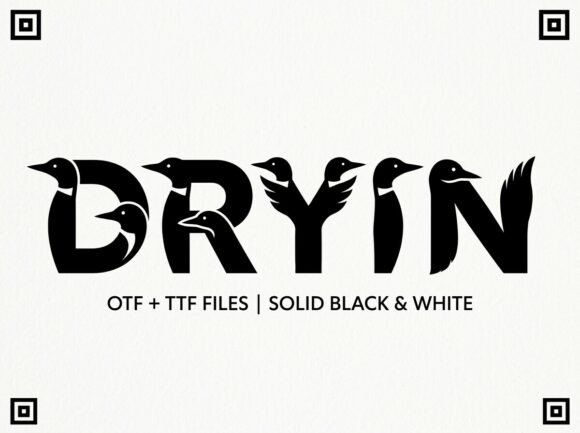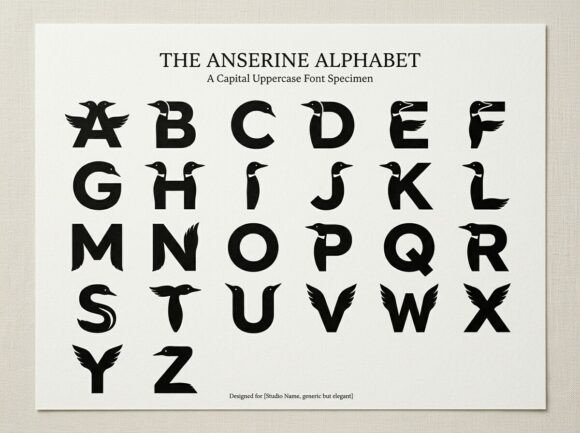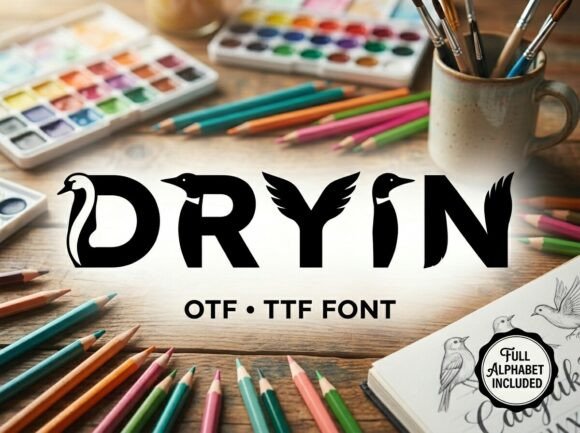
Introducing Dryin Font: Where Typography Meets Minimalist Nature Illustration
In the world of typography, few fonts have managed to capture the essence of nature’s elegance and sophistication. Dryin Font is one such exceptional typeface that seamlessly blends bold, solid silhouettes with the gentle profiles of water birds, creating a captivating display font that elevates visual storytelling.
The Unique Design of Dryin Font
Dryin Font is a masterpiece of typographic innovation, where each character is intricately integrated with the graceful curves of water birds. The high-contrast interaction between the heavy letterforms and the elegant avian curves creates a rhythmic, sophisticated aesthetic that is both visually striking and harmonious.
The font’s design is characterized by:
• Bold, solid silhouettes: Dryin Font features sturdy, confident letterforms that command attention and exude a sense of luxury.
• Elegant avian curves: The gentle profiles of water birds are masterfully woven into each character, adding a touch of serenity and natural beauty.
• High-contrast interaction: The interplay between the heavy letterforms and the delicate avian curves creates a captivating visual rhythm.
Ideal Applications for Dryin Font
Dryin Font is an extraordinary choice for a variety of design projects that require a sense of sophistication, elegance, and connection to nature. Some ideal applications include:
• Conservation branding: Dryin Font is perfect for organizations and initiatives focused on preserving our natural world.
• Lakeside resort logos: The font’s serene, natural beauty makes it an excellent fit for lakeside resorts, hotels, and retreats.
• Artisanal wildlife publications: Dryin Font adds a touch of luxury and sophistication to publications focused on wildlife, conservation, and the environment.
• Modern eco-friendly packaging: The font’s unique blend of typography and nature illustration makes it an excellent choice for eco-friendly packaging designs.
Designing with Dryin Font
Whether you’re designing for a luxury boutique or a nature-themed campaign, Dryin Font delivers a sense of handcrafted prestige and serene, professional charm to every word. Here are some tips for getting the most out of Dryin Font:
• Experiment with font sizes: Dryin Font is designed to make a statement, so don’t be afraid to experiment with different font sizes to create visual hierarchy and emphasis.
• Pair with complementary fonts: Combine Dryin Font with complementary fonts to create a unique and visually appealing typographic palette.
• Play with color: The font’s bold, solid silhouettes and elegant avian curves provide a versatile canvas for exploring different color schemes and palettes.
Dryin Font is a game-changing typeface that redefines the boundaries of typography and nature illustration. Its unique design, sophisticated aesthetic, and versatility make it an excellent choice for designers and crafters looking to elevate their visual storytelling. Whether you’re working on a conservation project, a luxury brand, or a nature-themed campaign, Dryin Font is sure to leave a lasting impression.